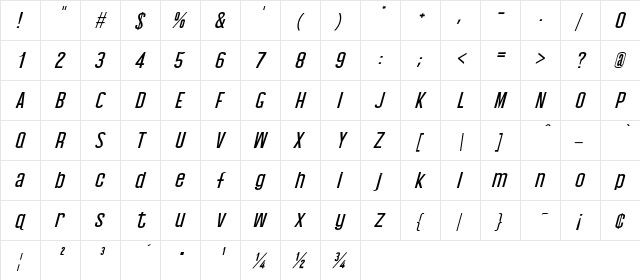
Baby Blues Italic
Design Context for Baby Blues Typeface
Baby Blues offers clean, dependable letterforms without strong stylistic allegiance, making it a practical choice for designers who need flexibility. The slanted form adds forward momentum and visual energy.
Pro Tip: Try Baby Blues for annotation and caption copy alongside an upright companion — the contrast in angle creates a dynamic but ordered typographic system.